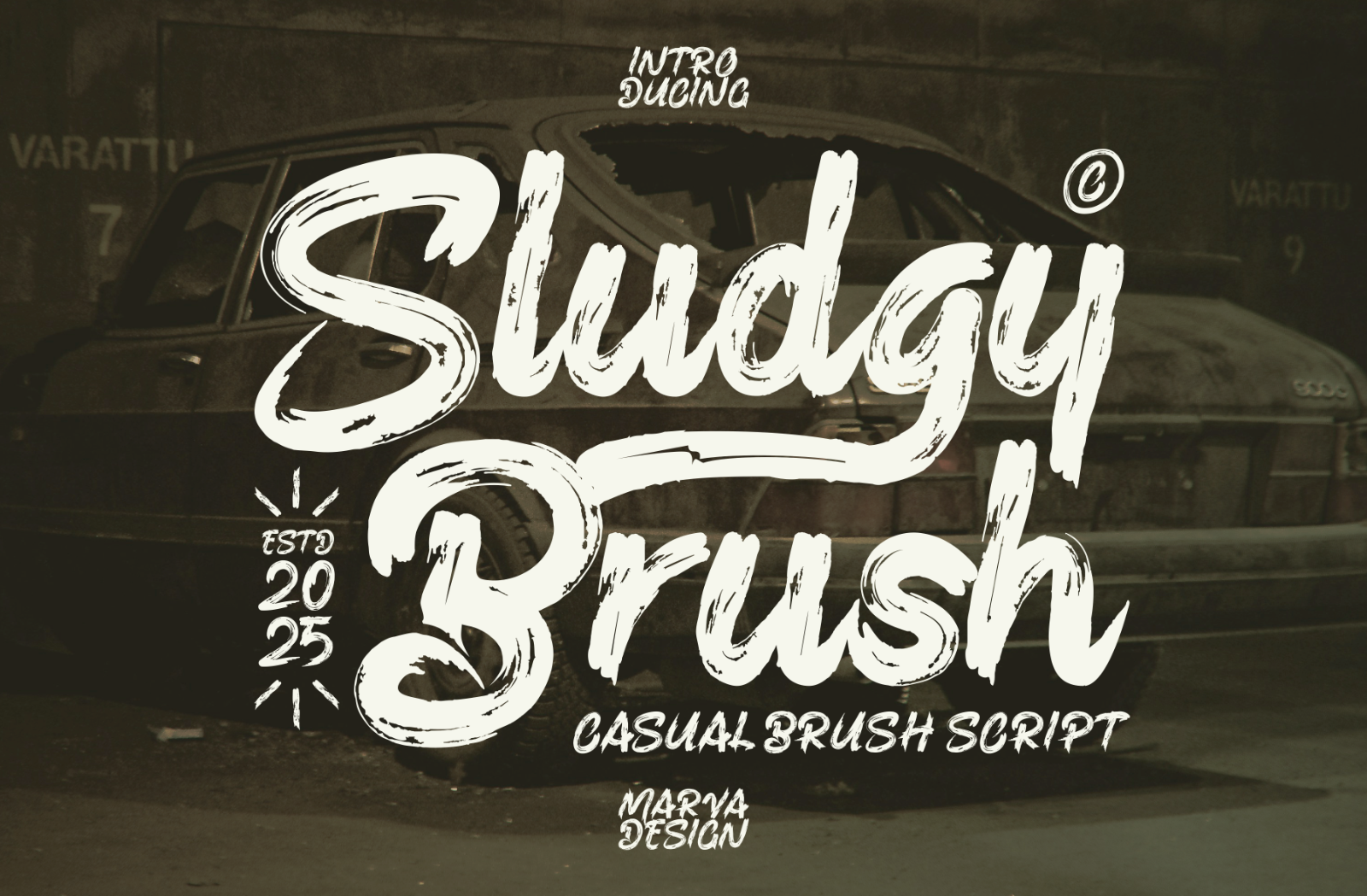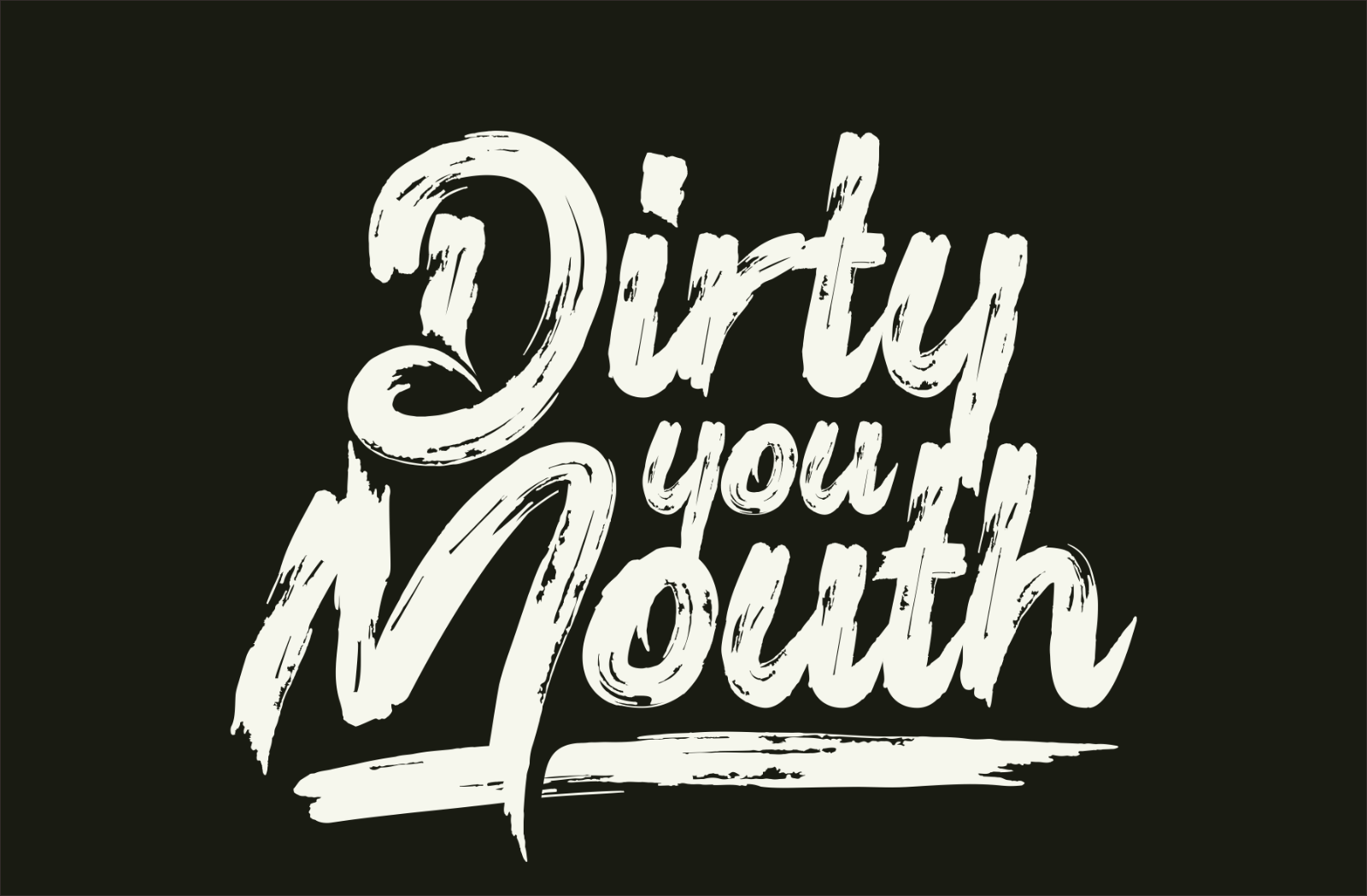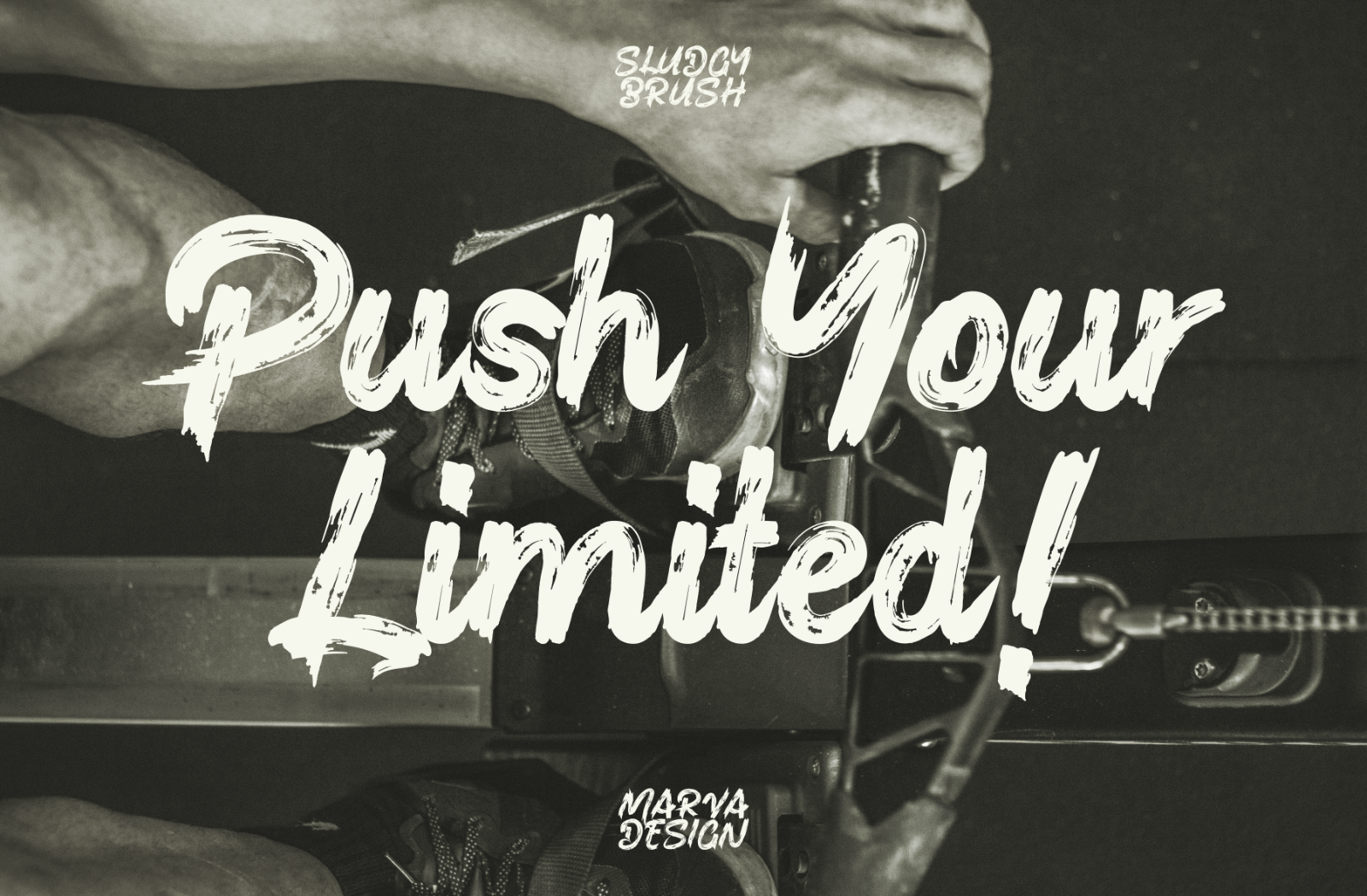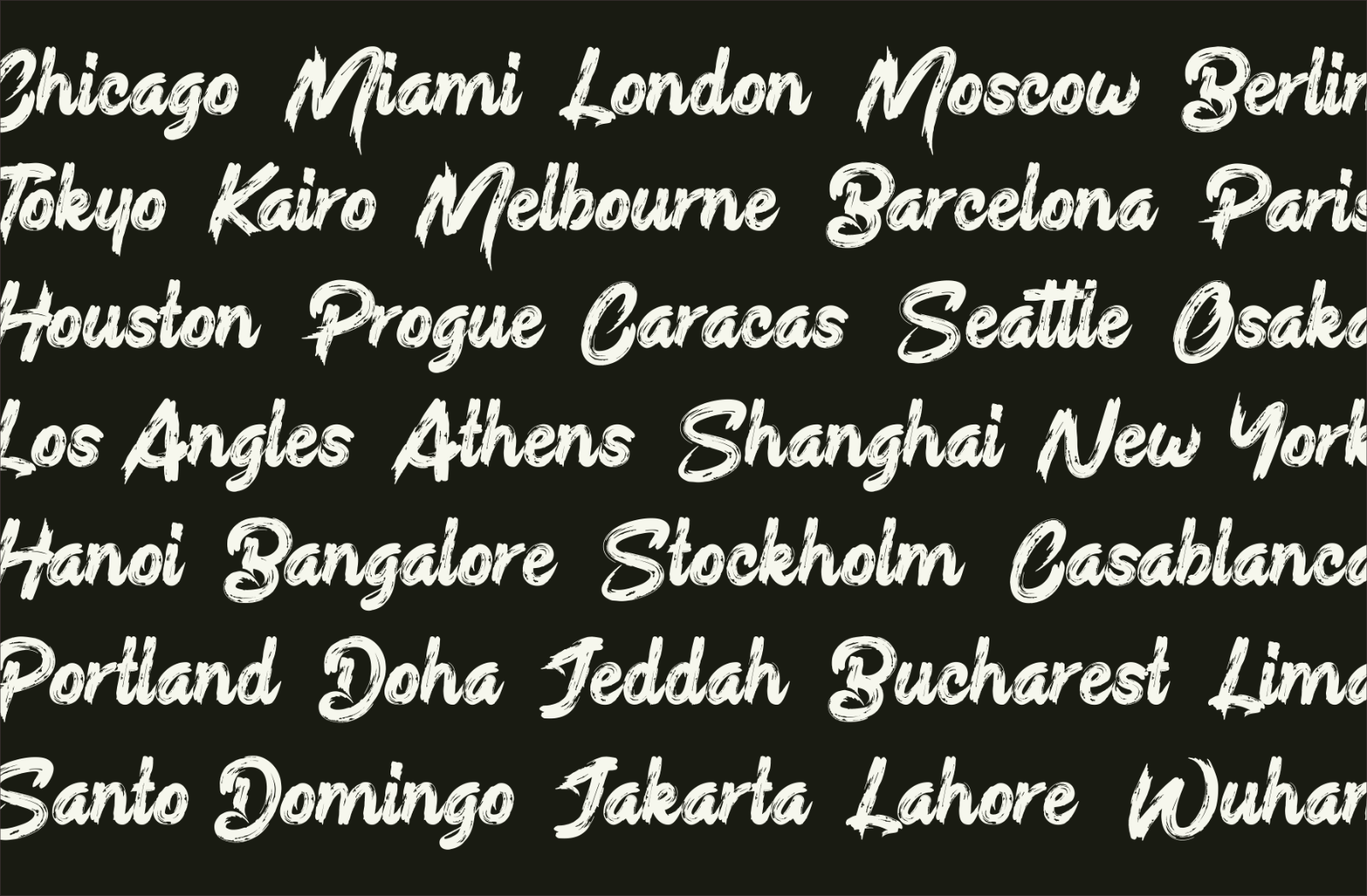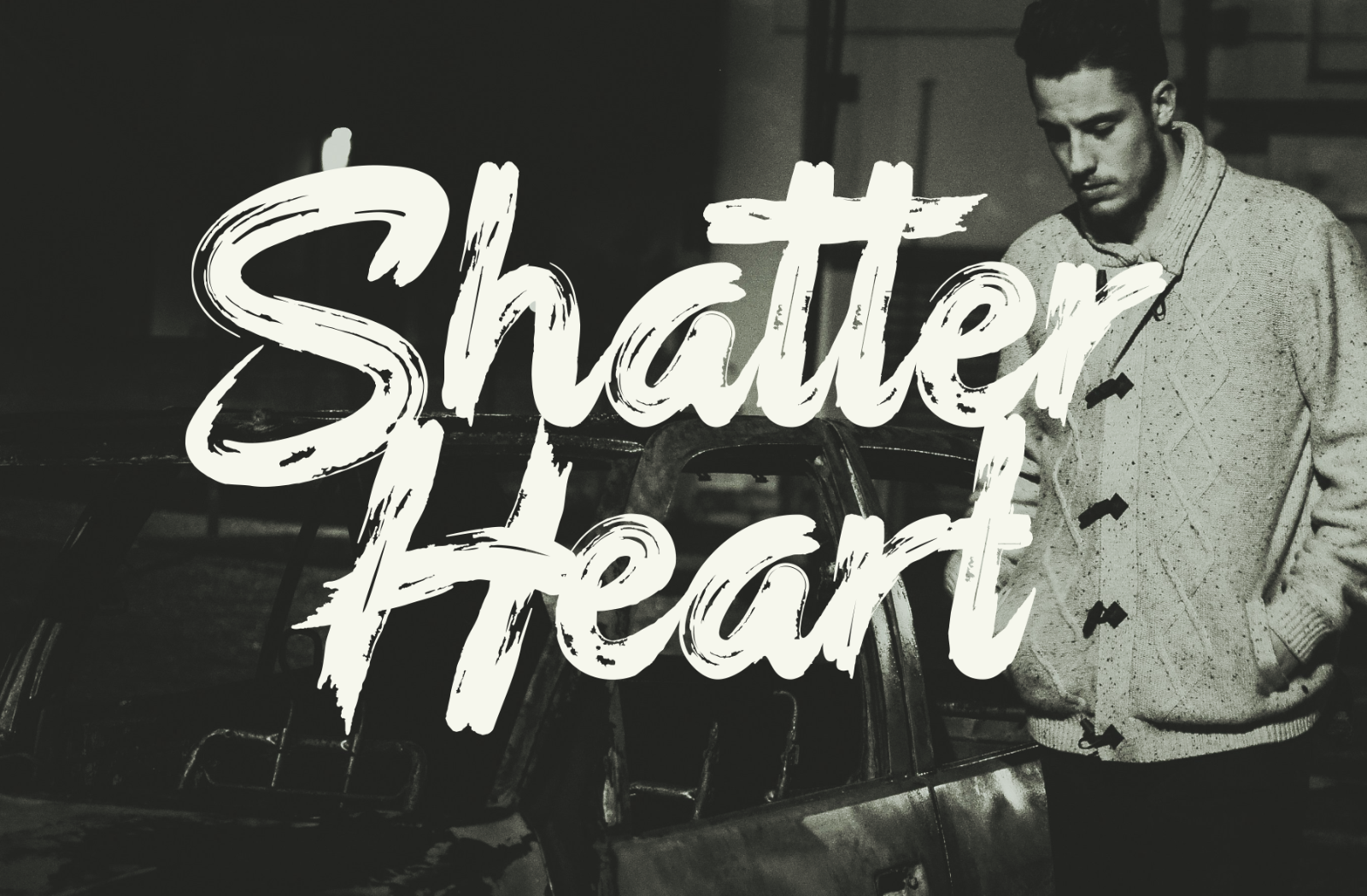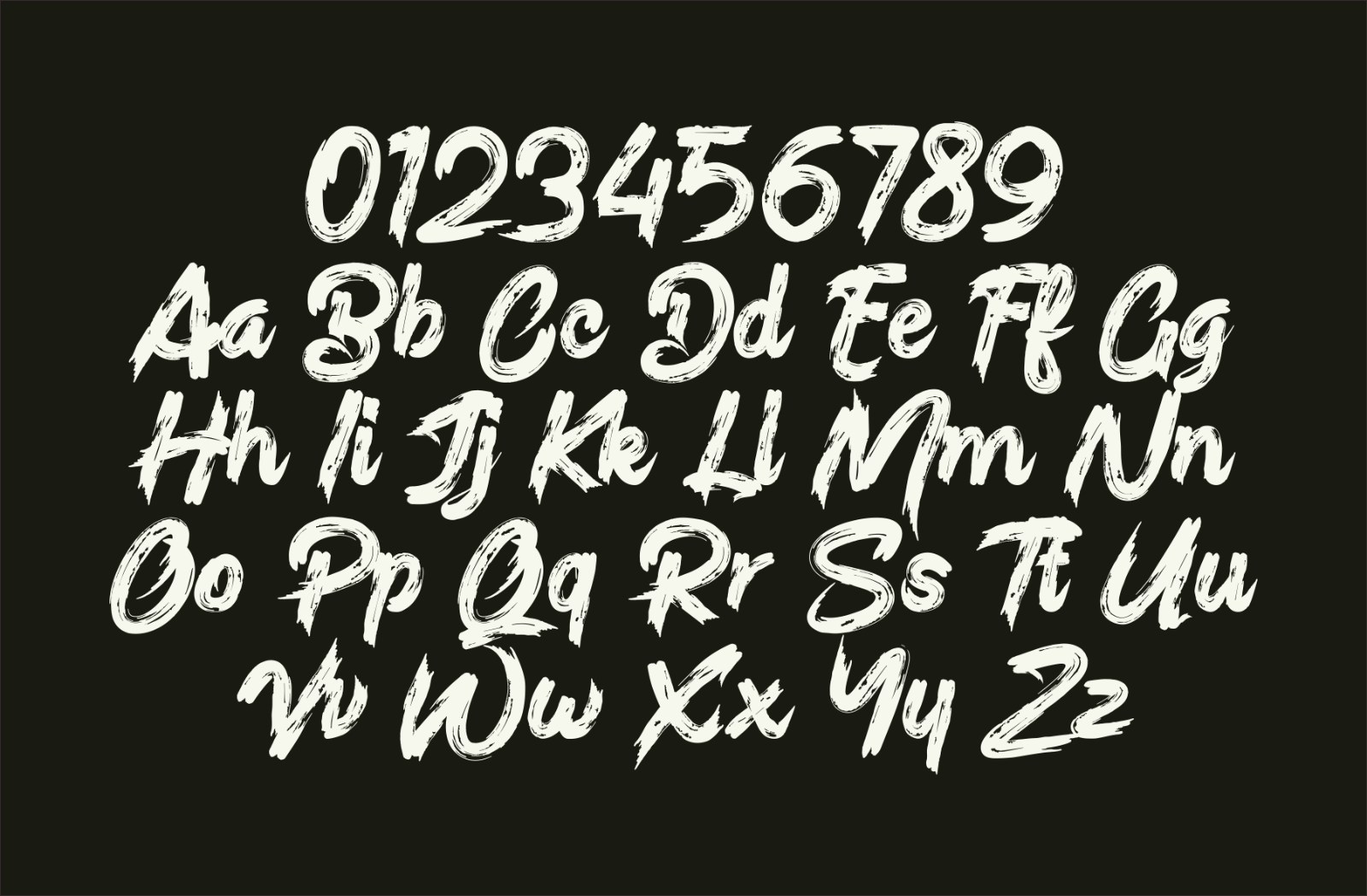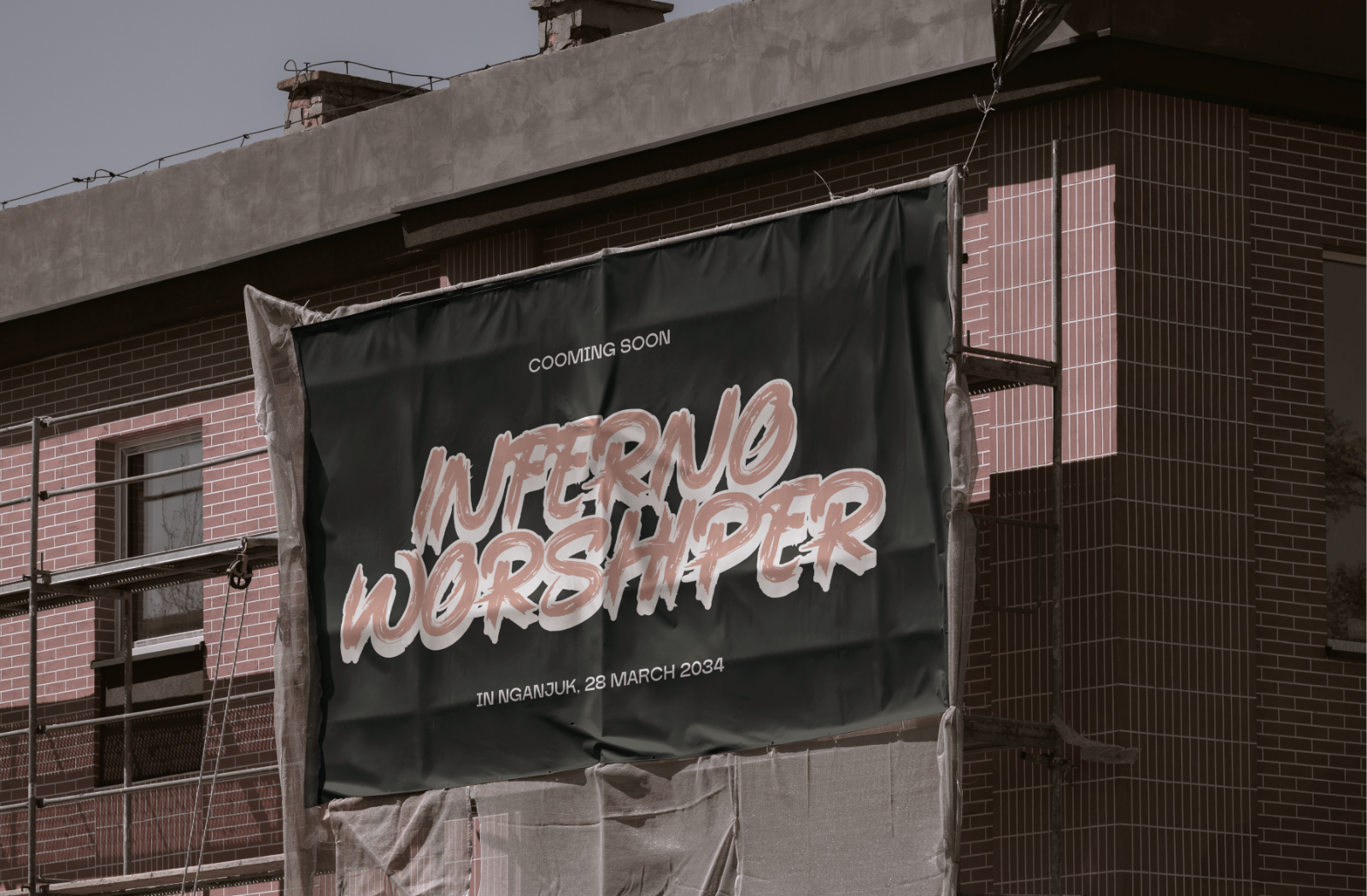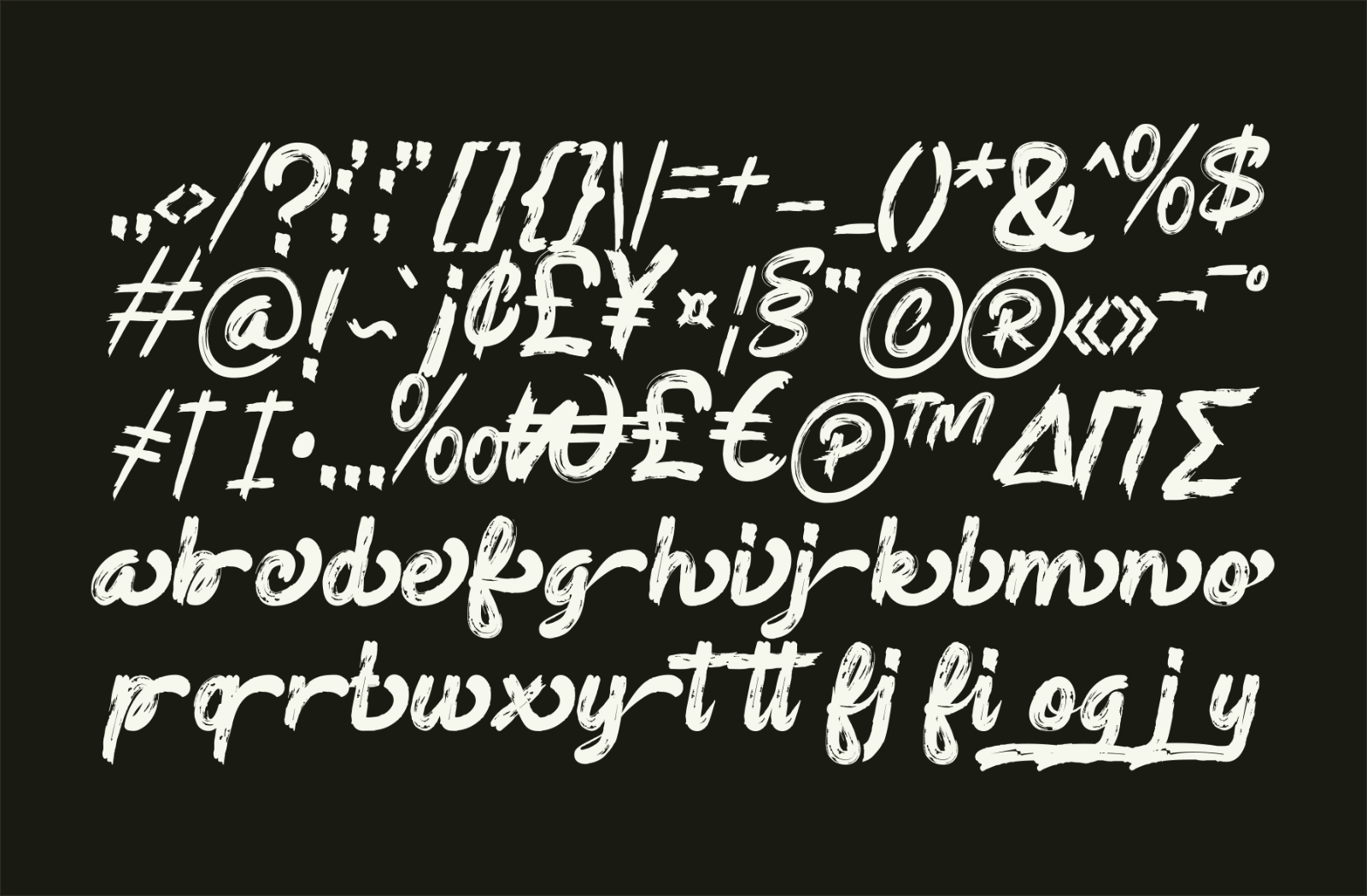
Introducing New Brush Font Sludgy Brush is a bold, expressive brush typeface with a rough, textured look. The font mimics hand-painted strokes, giving it an organic and dynamic feel. The letterforms are fluid and slightly irregular, giving it a natural, handmade feel. The bold strokes combined with the broken edges create a rugged, urban aesthetic that’s perfect for bold branding, posters, and street-style designs. The font also includes uppercase and lowercase characters, numbers, and several style alternatives, making it versatile for a variety of creative applications.